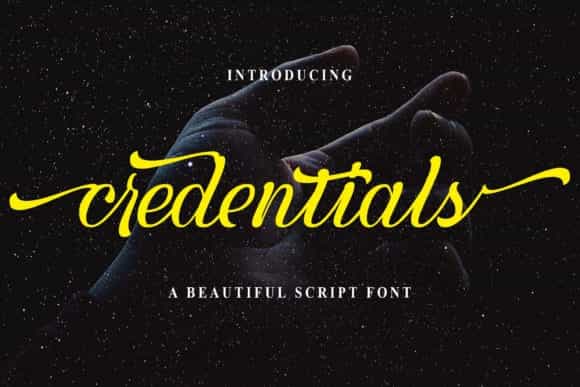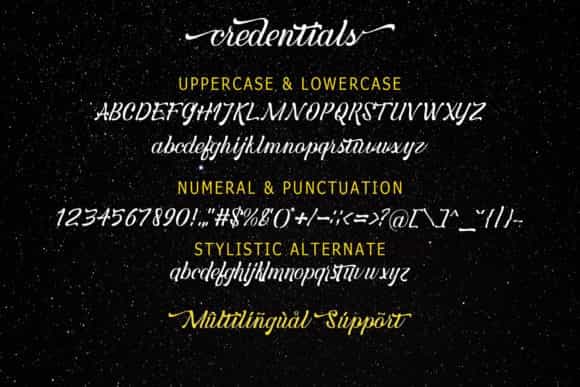
Credentials is a wonderful script font. This is the custom calligraphy lettering font with lots of alternates. It is a neat, strong and elegant writing that can be used in many projects. It is good for the urban style and also for the vintage. It is typeset and the font was made by Doehantz Studio. Credentials is a lively and dynamic script that’s full of life.